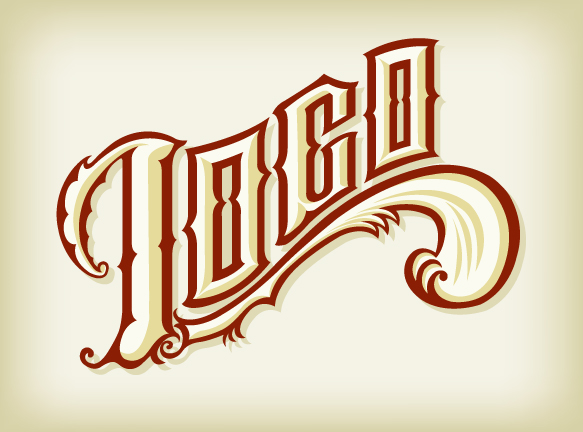
Loco in the house
I started pencil skecthing again and came up with this. This was done in pencil
then I took the sketch into Adobe illustrator and re-traced it. I am also (tonight hopefully)
going to re-do/trace it the old school way with no computer program just to where I go with it